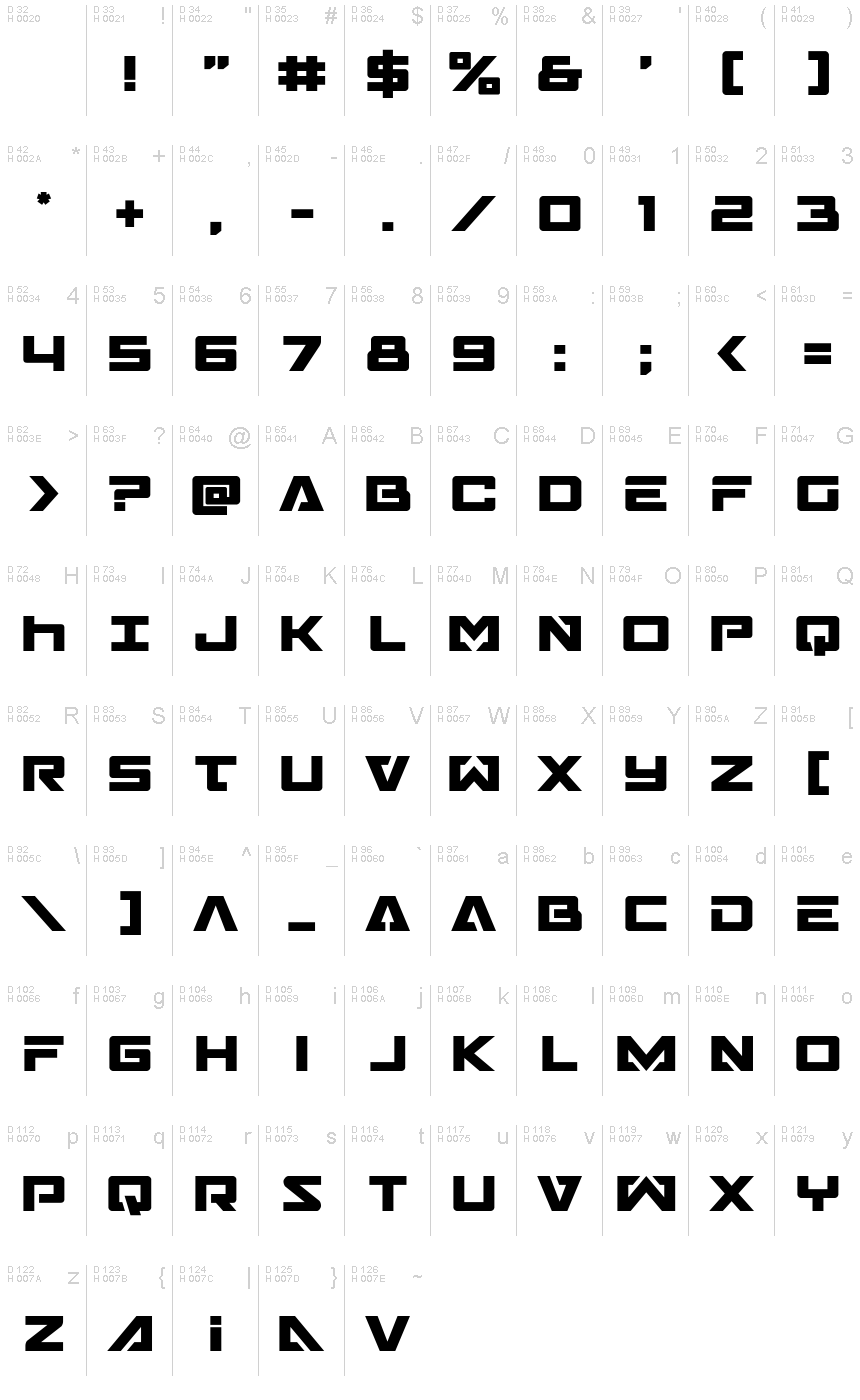
Trans-America, designed by Iconian Fonts, is a display font that propels any text into the future with its bold and expanded character set. Its style exudes a forward-thinking aesthetic, perfect for making a statement that stands out. The characters are crafted to command attention, embodying strength and modernity with every line.
This font's commanding presence makes it an ideal choice for eye-catching headlines, dynamic logos, or any project seeking to convey innovation and power. Trans-America's futuristic flair can give sci-fi movie titles an authentic edge or infuse tech startup branding with the essence of cutting-edge sophistication. Its powerful design ensures it leaves a lasting impression in print media, digital interfaces, and beyond.
Trans-America